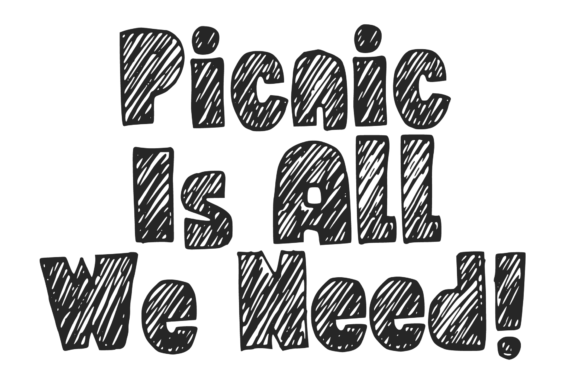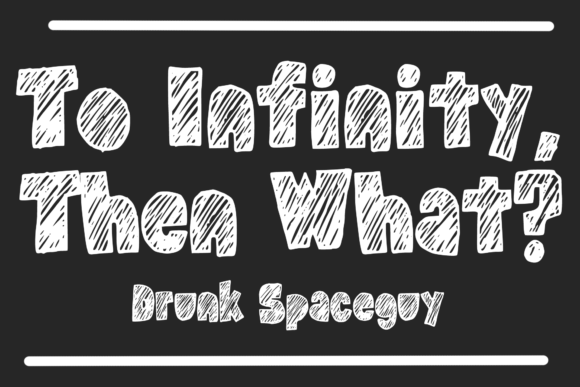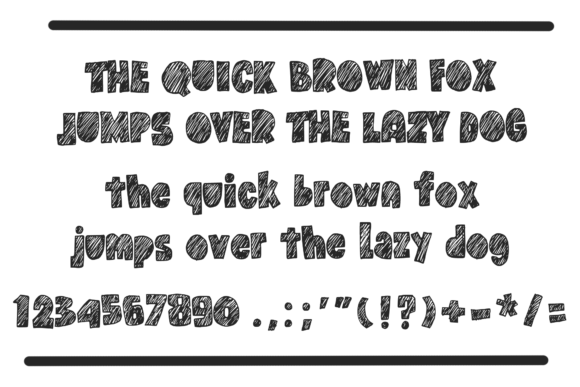
Unleash Your Creativity with Bold Yeah Font: The Ultimate Display Font for Attention-Grabbing Designs
Are you tired of using the same old fonts for your designs? Look no further than Bold Yeah Font, a bold and rough hand-drawn display font that’s sure to make your creations stand out. With its incredibly cool style, Bold Yeah is perfect for designers and crafters who want to add a casual touch to their work. In this article, we’ll dive into the world of Bold Yeah Font and explore its features, uses, and benefits.
What is Bold Yeah Font?
Bold Yeah Font is a unique and eye-catching display font that’s designed to grab attention. Its bold and rough hand-drawn style gives it a distinctive look that’s perfect for creating cool designs that scream for attention. Whether you’re working on a t-shirt, book design, restaurant menu, blog writing, greeting card, or sticker, Bold Yeah Font is the ideal choice.
Key Features of Bold Yeah Font
• Bold and Rough Hand-Drawn Style: Bold Yeah Font features a bold and rough hand-drawn style that’s perfect for creating attention-grabbing designs.
• Versatile: This font is versatile and can be used for a wide range of design projects, from t-shirts and book designs to restaurant menus and greeting cards.
• Casual Touch: Bold Yeah Font adds a casual touch to any design, making it perfect for designers and crafters who want to create laid-back and relaxed designs.
• Easy to Read: Despite its bold and rough style, Bold Yeah Font is easy to read, making it perfect for use in designs where readability is important.
Uses of Bold Yeah Font
Bold Yeah Font is perfect for a wide range of design projects, including:
• T-Shirts: Create cool and eye-catching t-shirt designs with Bold Yeah Font.
• Book Designs: Use Bold Yeah Font to create attention-grabbing book covers, titles, and headings.
• Restaurant Menus: Add a casual touch to your restaurant menu with Bold Yeah Font.
• Blog Writing: Use Bold Yeah Font to create eye-catching headings and titles for your blog posts.
• Greeting Cards: Create unique and personalized greeting cards with Bold Yeah Font.
• Stickers: Use Bold Yeah Font to create cool and eye-catching stickers.
Benefits of Using Bold Yeah Font
There are many benefits to using Bold Yeah Font, including:
• Unique and Eye-Catching Designs: Bold Yeah Font helps you create unique and eye-catching designs that grab attention.
• Increased Creativity: With Bold Yeah Font, you can unleash your creativity and experiment with different design ideas.
• Time-Saving: Bold Yeah Font is easy to use and saves you time, allowing you to focus on other aspects of your design project.
• Professional-Looking Designs: Bold Yeah Font helps you create professional-looking designs that are perfect for personal or commercial use.
Tips for Using Bold Yeah Font
Here are some tips for using Bold Yeah Font:
• Experiment with Different Sizes: Experiment with different font sizes to create visual interest and hierarchy in your designs.
• Combine with Other Fonts: Combine Bold Yeah Font with other fonts to create a unique and eye-catching design.
• Use in Moderation: Use Bold Yeah Font in moderation to avoid overwhelming your design.
• Pay Attention to Readability: Pay attention to readability and make sure your text is easy to read.
Bold Yeah Font is a bold and rough hand-drawn display font that’s perfect for designers and crafters who want to create attention-grabbing designs. With its incredibly cool style, versatility, and ease of use, Bold Yeah Font is the ideal choice for a wide range of design projects. Whether you’re working on a t-shirt, book design, restaurant menu, or sticker, Bold Yeah Font is sure to help you create unique and eye-catching designs that scream for attention.